Step into the next era of typography with my handpicked list. These 18 futuristic sans serif font choices offer unique alternates and sleek lines, making them the ultimate tools for designers ready to push their work far beyond tomorrow.
1. Surfume Font: A Masterclass in Sci-Fi Minimalism
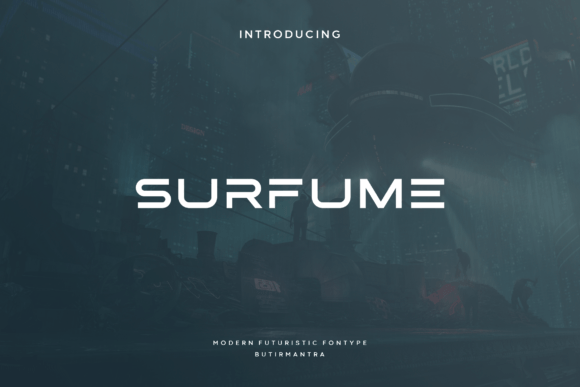
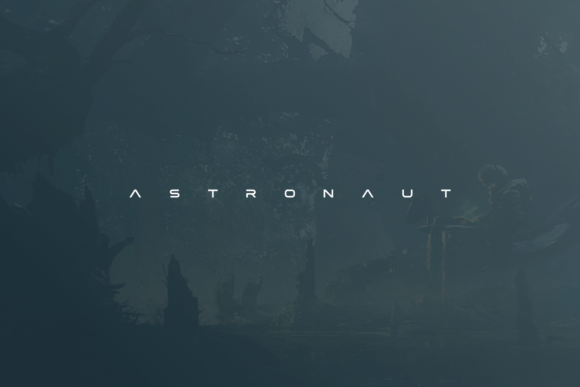
I see Surfume as a breath of fresh air for anyone tired of overly cluttered sci-fi aesthetics. It draws heavy inspiration from the sleek visuals of high-budget space epics, stripping away the noise to leave behind a typeface that feels both advanced and incredibly refined. This futuristic sans serif font uses its clean lines and wide tracking to create a sense of vast, open space. It is a perfect fit for modern branding, cinematic posters, or tech-focused logos where you need a look that is sophisticated but still clearly from the year 3000.
The real strength here lies in its versatility. While many themed typefaces are too “loud” for practical use, this one maintains an elegant balance that works across digital interfaces and luxury packaging. I love how the horizontal emphasis makes every word feel like it’s gliding across the screen. If you are looking for a futuristic sans serif font that prioritizes readability without sacrificing its interstellar soul, this is a top-tier contender for your next creative project.
2. Futuristic: Push the Boundaries of Digital Branding
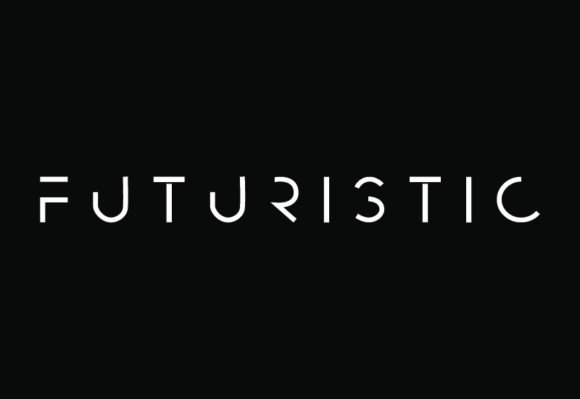
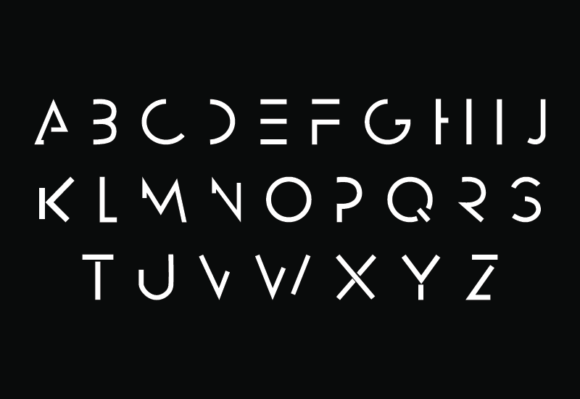
I appreciate how Futuristic breaks away from traditional letterforms to offer something truly experimental. It feels like a encoded language from a distant galaxy, using abstract geometric shapes and intentional gaps to create a striking visual rhythm. This futuristic sans serif font is a bold statement piece, perfect for gaming interfaces, electronic music covers, and avant-garde fashion branding. It transforms standard text into a piece of digital art that demands attention.
I believe its greatest strength is the unique personality it brings to high-tech themes. The minimalist construction ensures that even with its stylized appearance, the characters feel cohesive. It is an excellent futuristic sans serif font for sci-fi book titles or innovative tech startups looking to project a forward-thinking image. By using this typeface, you instantly give your work a professional, cutting-edge edge that separates it from more conventional designs.
3. Gunken: Clean Geometry for the Next Generation of Design
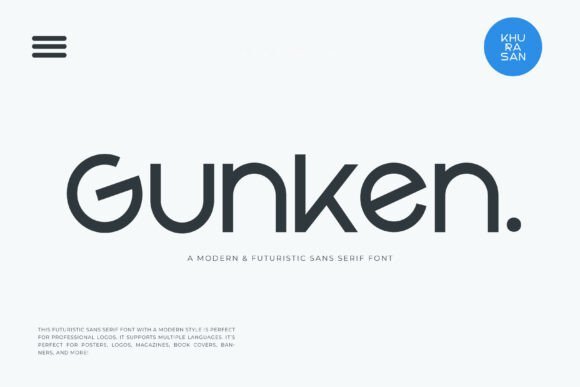
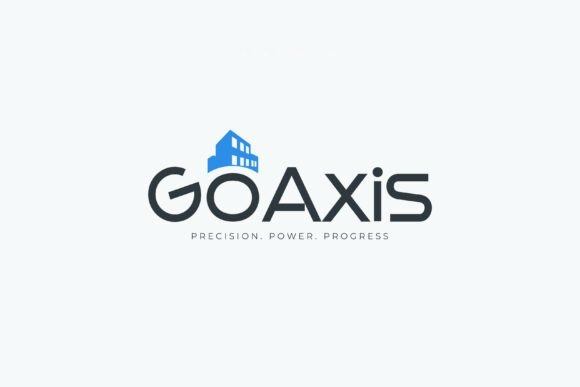
I admire how Gunken manages to feel grounded yet entirely prepared for the future. It balances soft, rounded curves with sharp, decisive cuts, creating a friendly yet authoritative presence on the page. This futuristic sans serif font is a dream for corporate branding, architectural portfolios, and tech magazines that need to look approachable without losing their professional edge. It feels less like a cold machine and more like a human-centric vision of what is to come.
I notice that the spacing and weight are optimized for versatility, making it shine in both massive headlines and smaller secondary text. It is a fantastic futuristic sans serif font for minimalist logos, web banners, and modern book covers where clarity is just as important as style. Choosing this typeface means giving your project a polished, high-end finish that feels current and innovative.
4. Rosnoc Font: A Sophisticated Leap into Robotic Design
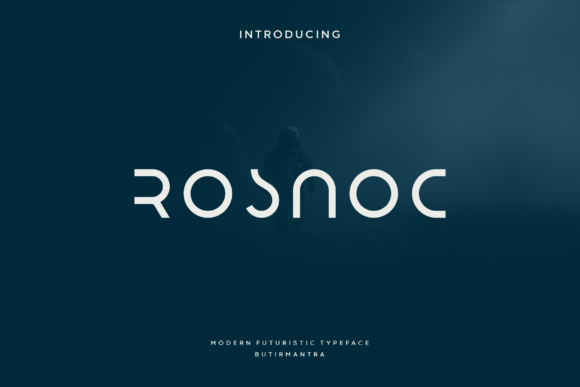
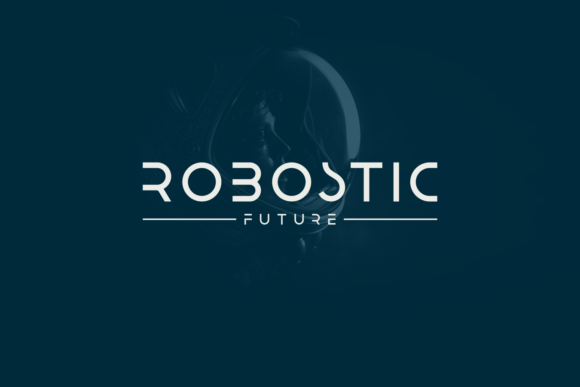
Getting a glimpse of Rosnoc immediately brings to mind high-concept space exploration and robotic engineering. I love how it plays with semi-connected forms and circular geometry to create a look that is both highly technical and surprisingly airy. This futuristic sans serif font excels in environments where you want to project innovation, making it a natural fit for space-themed branding, robotic industry logos, and AI interface designs.
The all-caps structure is handled with such sophistication that it feels like a bespoke piece of art rather than a standard alphabet. I see it working beautifully for cinematic title cards, specialized tech magazines, and high-end product labels that need a distinctive, modern edge. It is a fantastic futuristic sans serif font if you want to ensure your headlines are not just read, but truly experienced as a part of a wider visionary aesthetic.
5. Space Power: The Ultimate Typeface for Aerospace Branding
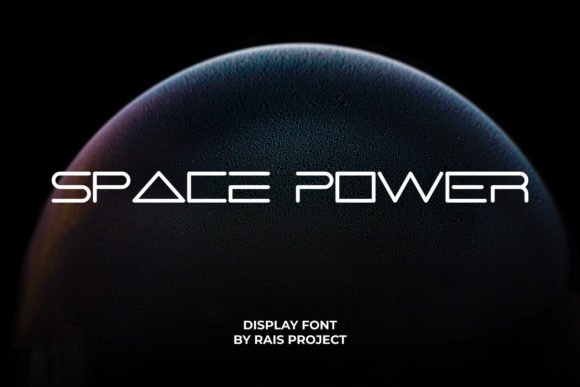
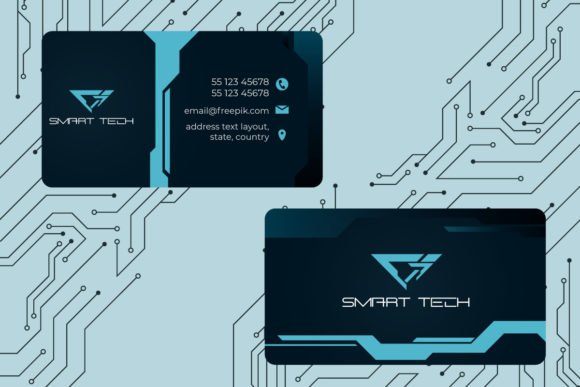
I feel a strong sense of momentum when looking at Space Power, as its wide, ultra-modern letterforms seem to stretch toward the horizon. The unique cuts and triangular accents within the characters give it a specialized, technical feel that is hard to ignore. This futuristic sans serif font is a fantastic choice for spaceship interfaces, tech event branding, and gaming logos where you want to emphasize speed and high-end engineering.
I love how the uppercase letters command the space, making it a natural fit for digital signage, cinematic titles, and innovative product labels. It works exceptionally well in advertising campaigns for the automotive or aerospace industries. If you need a futuristic sans serif font that feels both exclusive and powerful, this typeface provides a professional finish that will make any creative design truly pop.